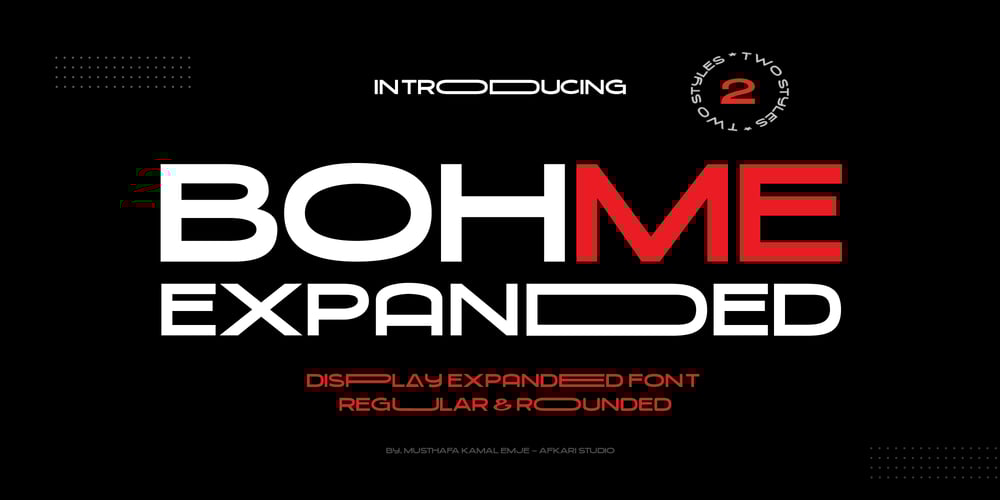
Bohme Font Family was designed by Musthafa Kamal Emje and published by Afkari Studio. Bohme contains 2 styles and family package options. Introducing Bohme Expanded, a dynamic and modern Display Sans Serif Font that takes typography to new heights. This font, characterized by its bold and expansive design, is crafted for those seeking a typeface that seamlessly combines contemporary aesthetics with a touch of sophistication.Bohme Expanded is not just a font; it’s a design statement. Its expansive letterforms exude confidence, making it the perfect choice for projects that demand attention and impact. Whether you’re designing headings, logos, posters, or any creative endeavor that requires a bold and stylish touch, Bohme Expanded is your go-to typeface.Key Features:- Uppercase, lowercase, numbers, and punctuation- Expansive and bold letterforms for a commanding presence- Versatile for a variety of design applications- Works seamlessly on both PC and Mac platforms- Easy installations for a hassle-free experience- Accessibility in popular design software such as Adobe Illustrator, Adobe Photoshop, Adobe InDesign, and more- Fully functional without the need for additional design softwareBohme Expanded is designed to make an impact, offering a fresh take on the classic sans-serif genre. Elevate your creative projects with the bold and contemporary vibes of Bohme Expanded, ensuring your designs stand out in the modern design landscape. We hope you enjoy using our font, confident that it will become a valuable asset in bringing your creative visions to life. Happy designing!